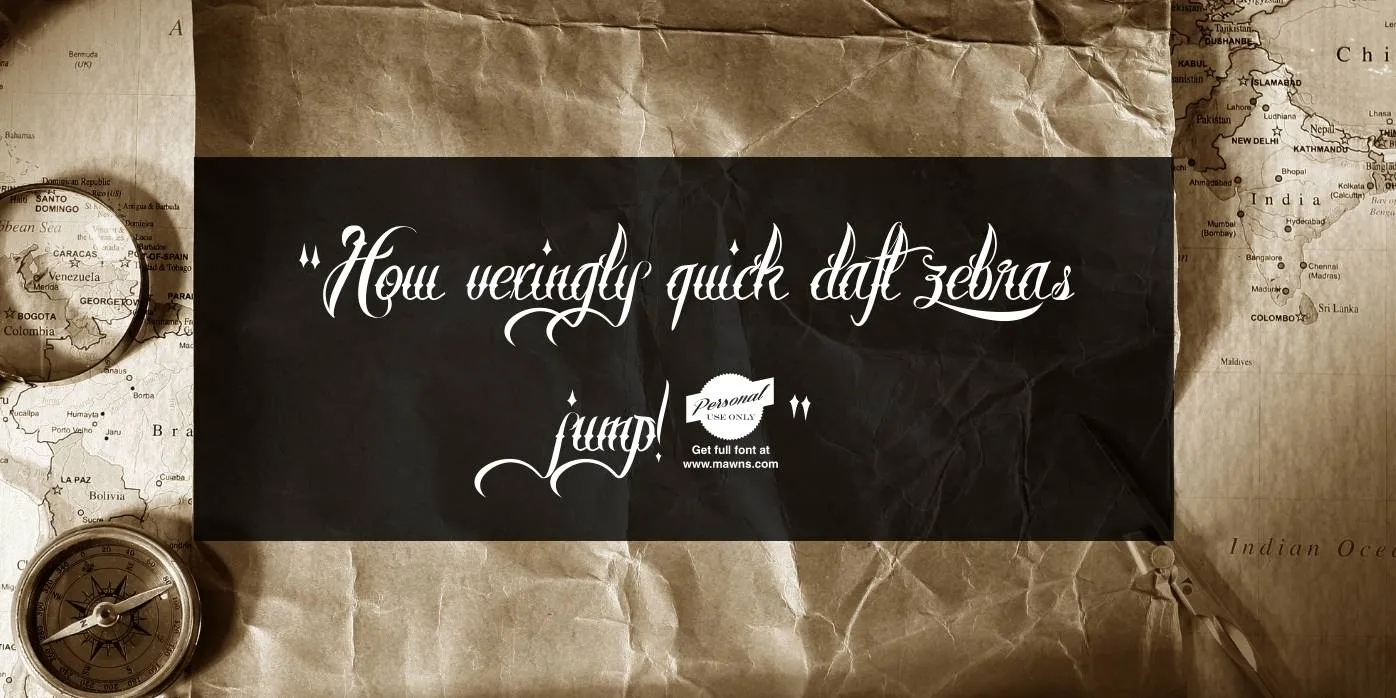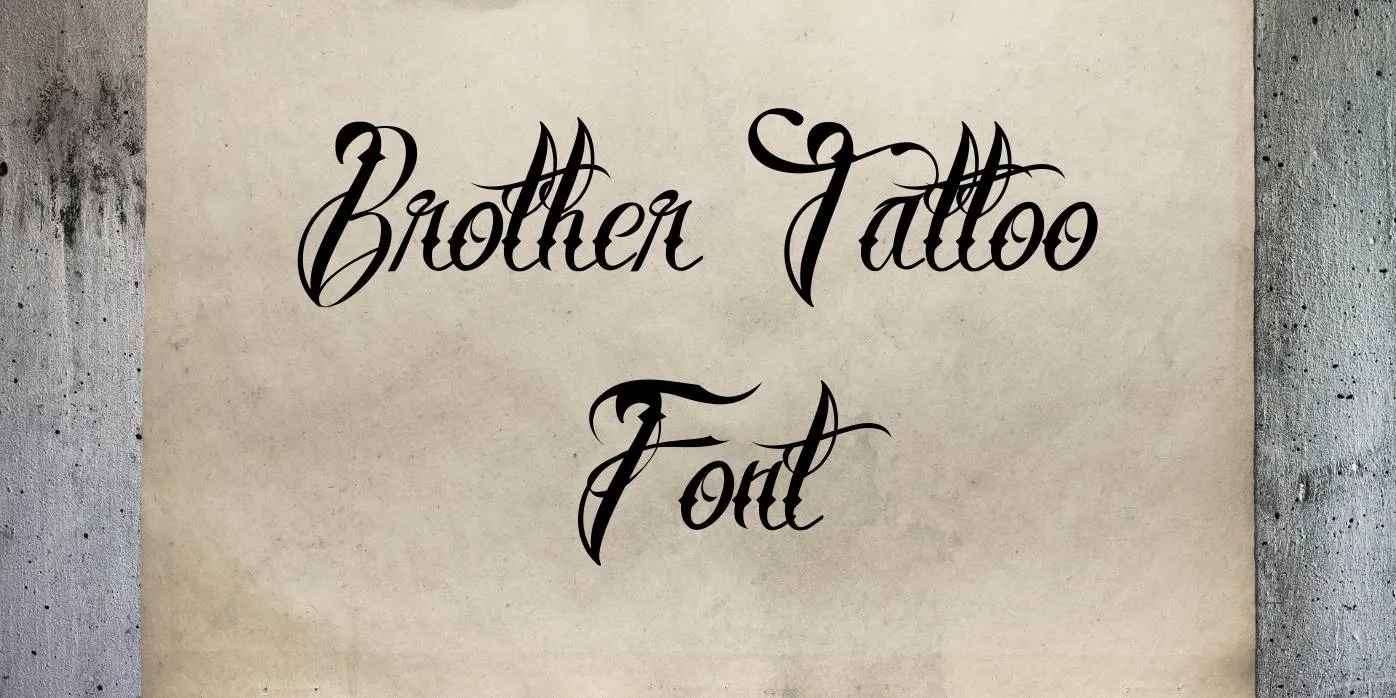
Brother Tattoo Font
Brother Tattoo Font was developed by Vicky Mardian. This stunning typeface belongs to the calligraphy typeface. It has a very vintage look that makes it perfect for tattoo designs and other artistic projects. This cute font is available in two weights, Regular and Bold.
Each weight contains more than 400 glyphs, which gives you plenty of options to play with. It is very famous due to its swashes and ligature. It is best for MS Word and Canva. It is well specified by the CSS Family.
You can use Brother Tattoo Font for various projects. This stunning font will definitely make your design stand out from the rest. It has keen and clean features. Midnight Font is alternative to this stunning font family.